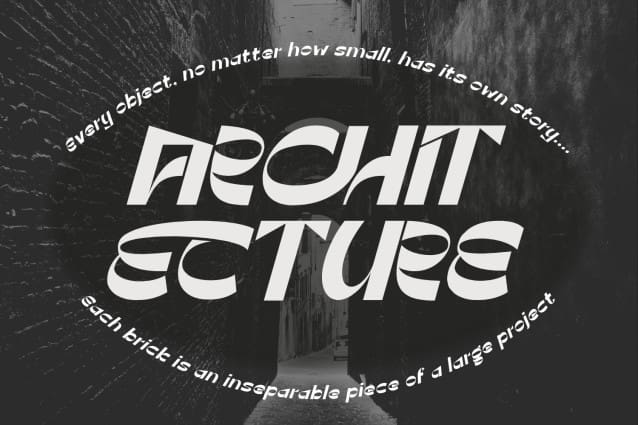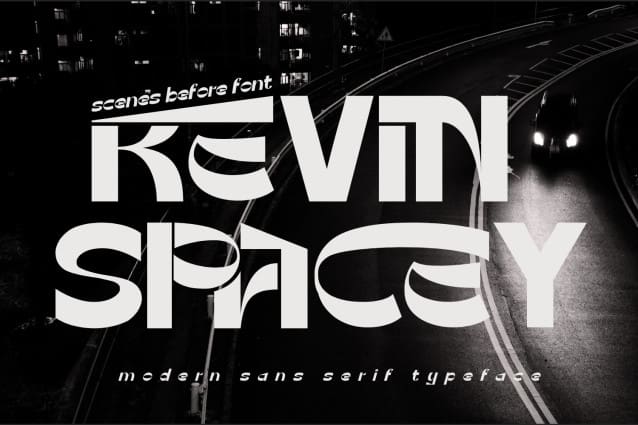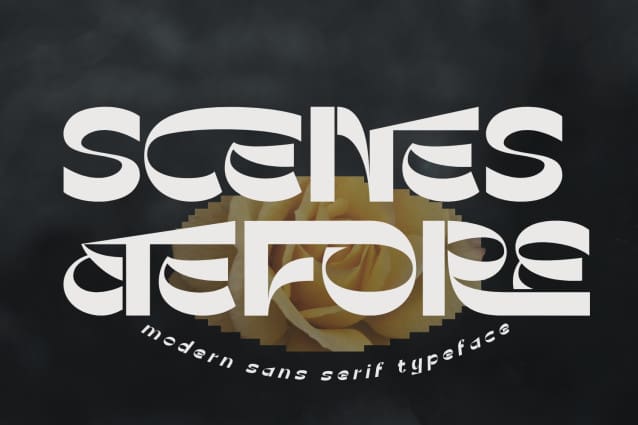
Scenes Before Font
Scenes Before Font – A versatile new sans serif that is contemporary and stylish, but with a touch of retro. An elegant font designed when in a creative mood and perfect shape, inspired by the bold, natural look of serifs so beautiful for today’s fashion. bold, balanced and varied, born for luxury and beauty. This font offers unparalleled versatility to suit any design project.
SCENES BEFORE was built with OpenType features and includes 100 ligatures, alternate, numbers, punctuation, and it also supports other languages.
AC AD AL AN AR AS AT AU AV BE CA CE CH CO CT DE DI EA EC ED EE EL EM EN EP ER ES ET FE FO FR GE HA HE HI HO IE IC IL IN IO IR IS IT JU KE LA LE LI LL LO LY MA ME MI NC ND NE NG NO NT NS OC OF OM ON OO OP OR OT OU OW PA PR RA RD RE RI RO RS RT SE SH SI SO SS ST TA TE TH TI TO TR TT UM UN UR VE WI WO